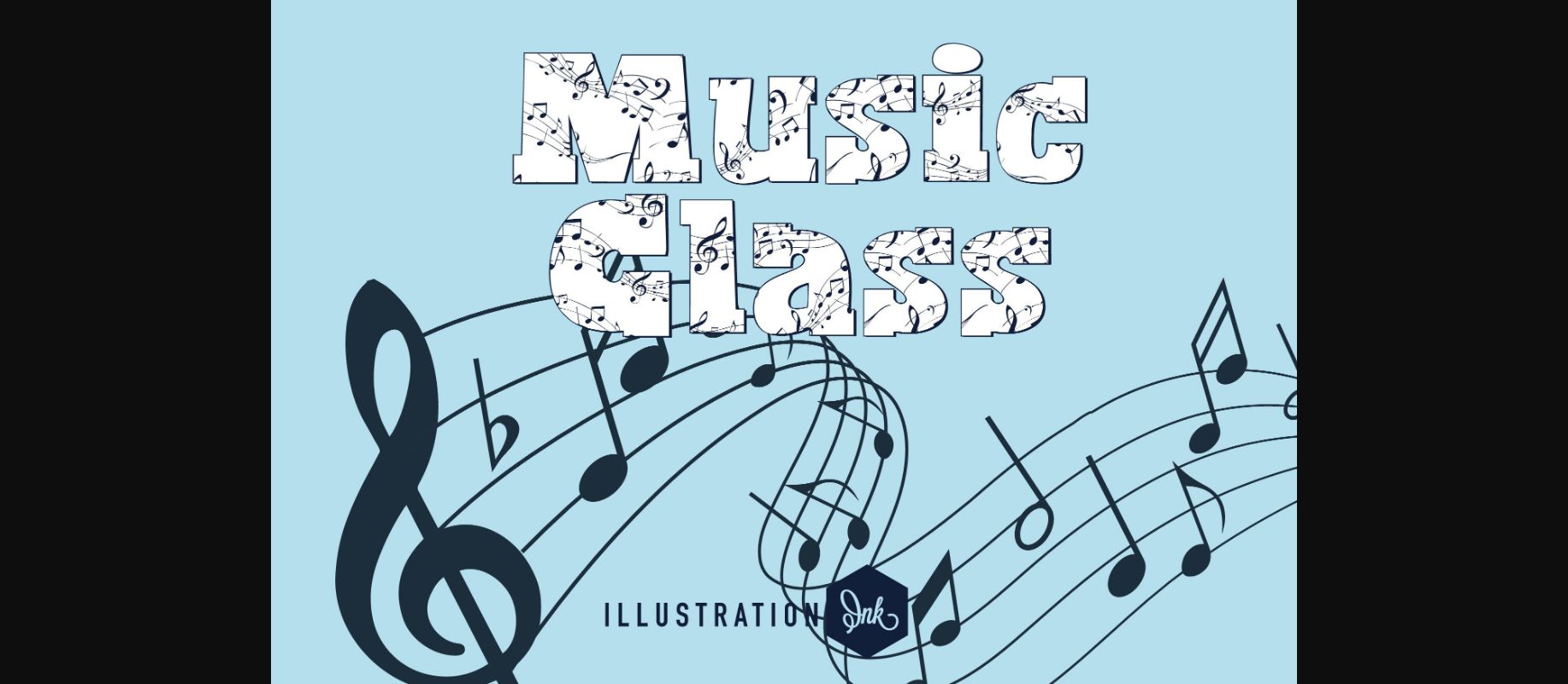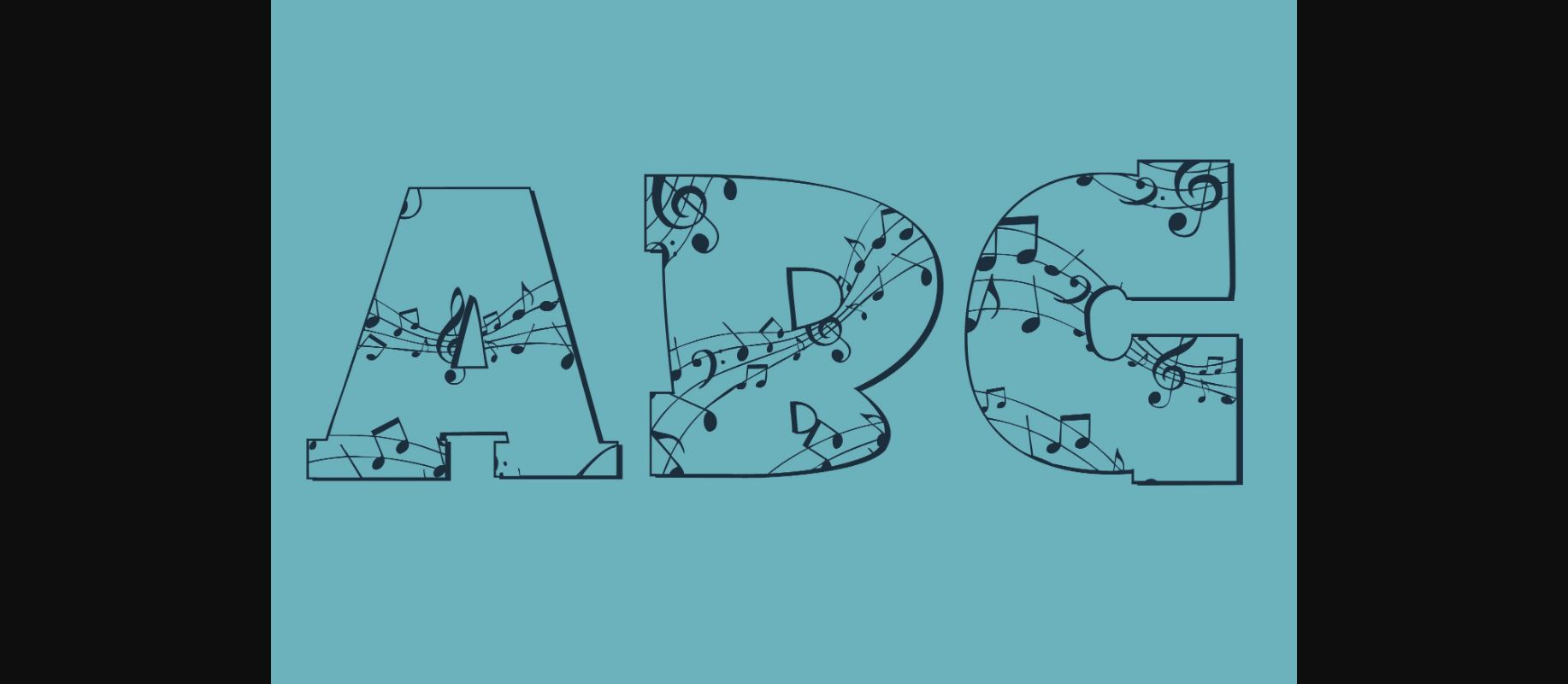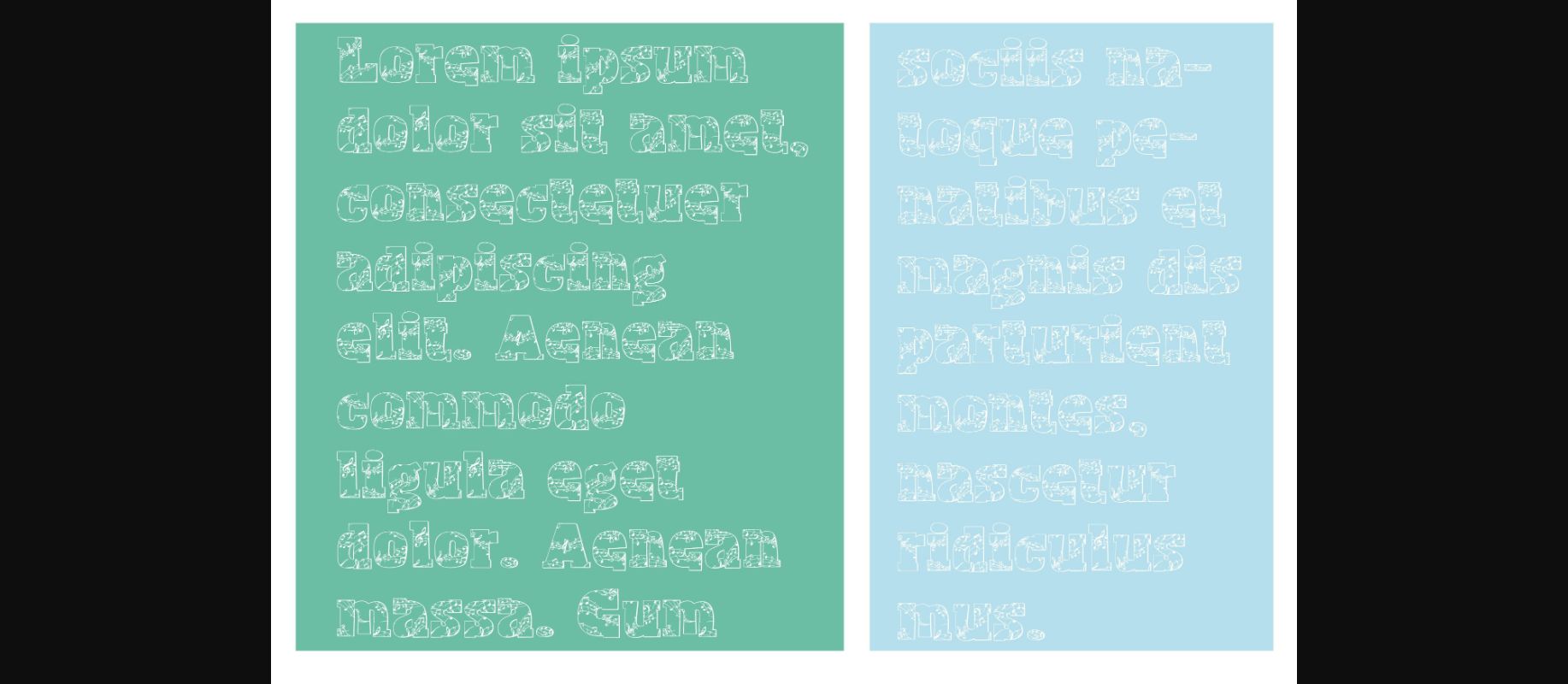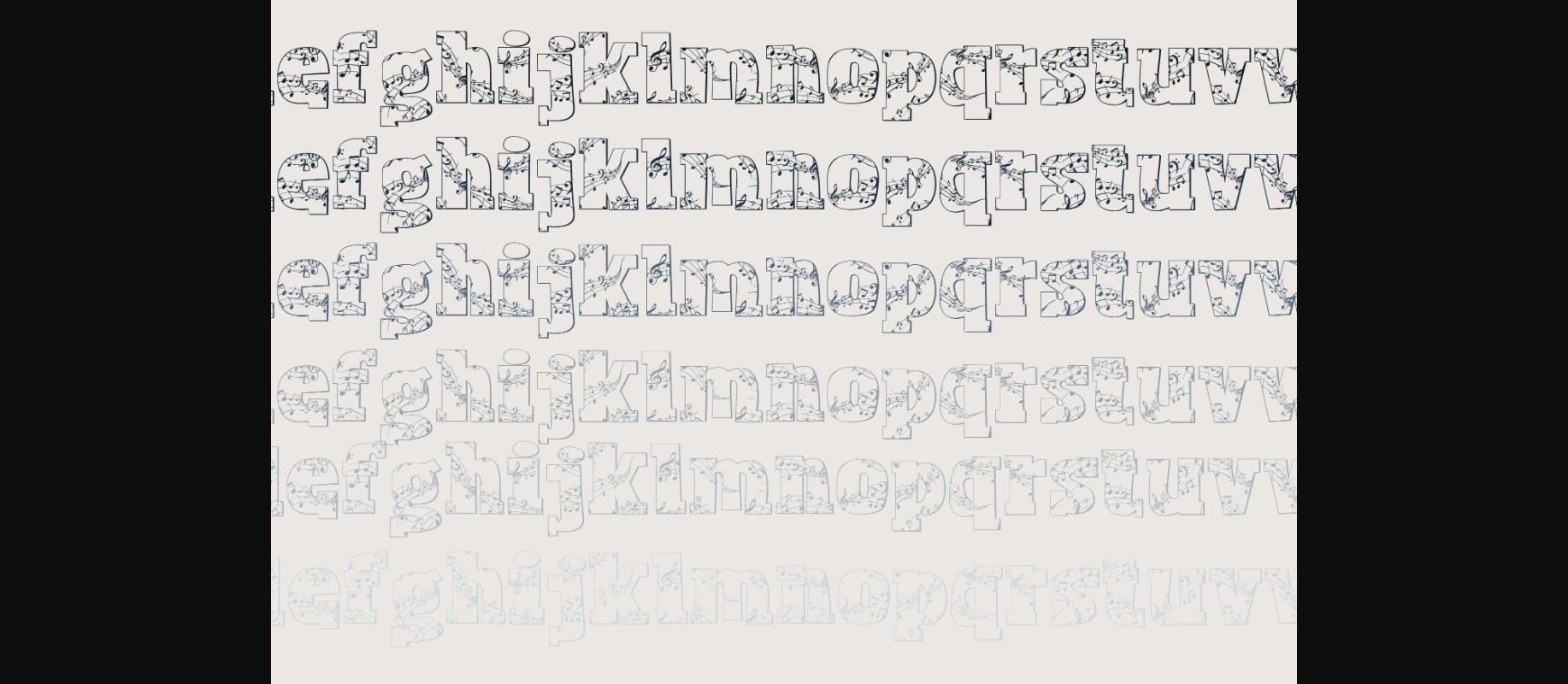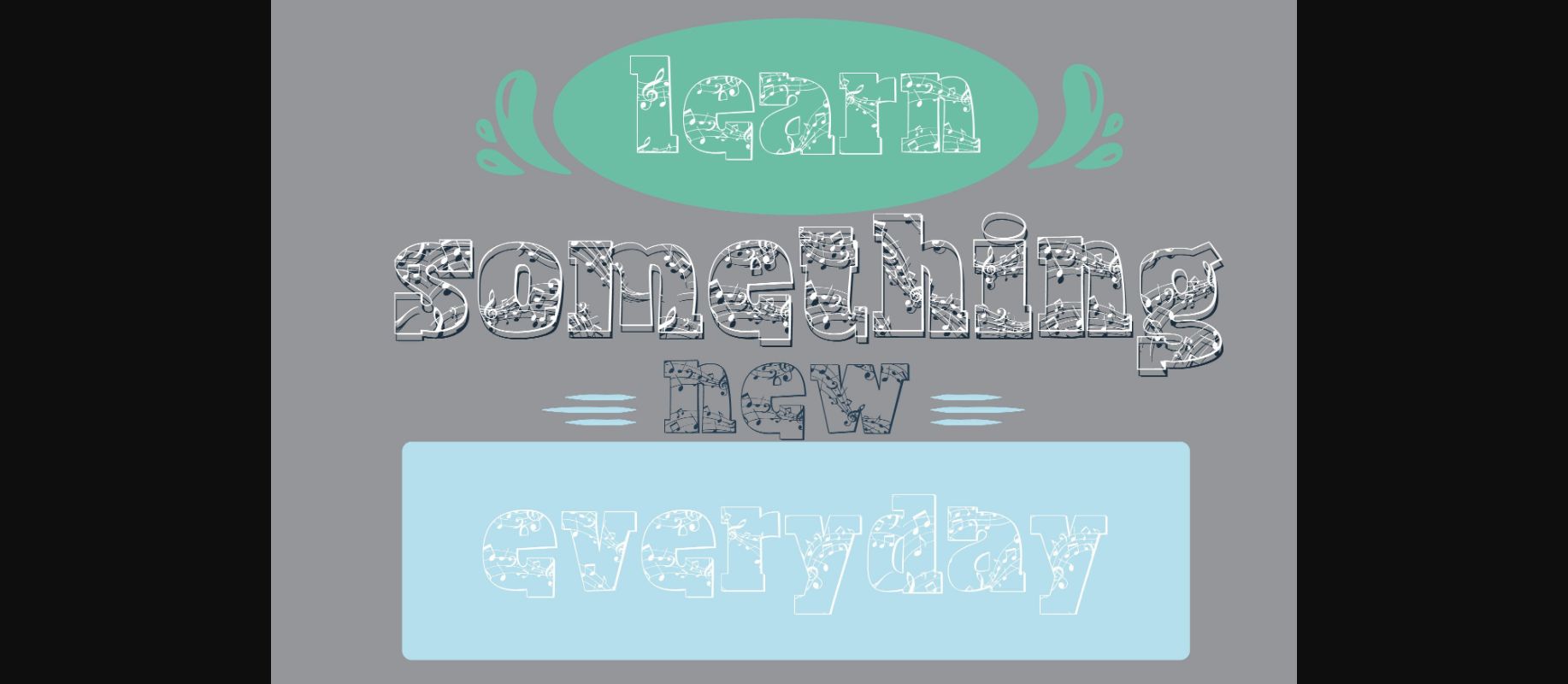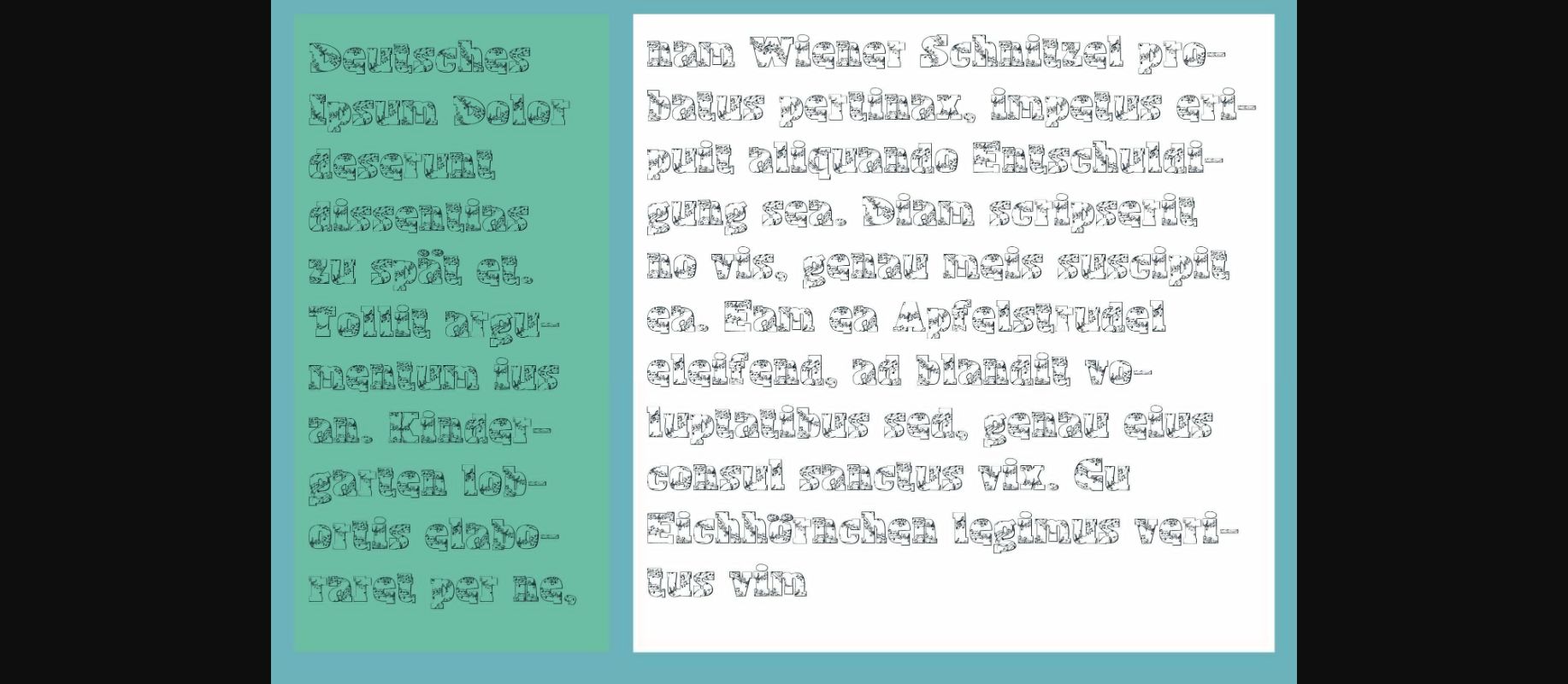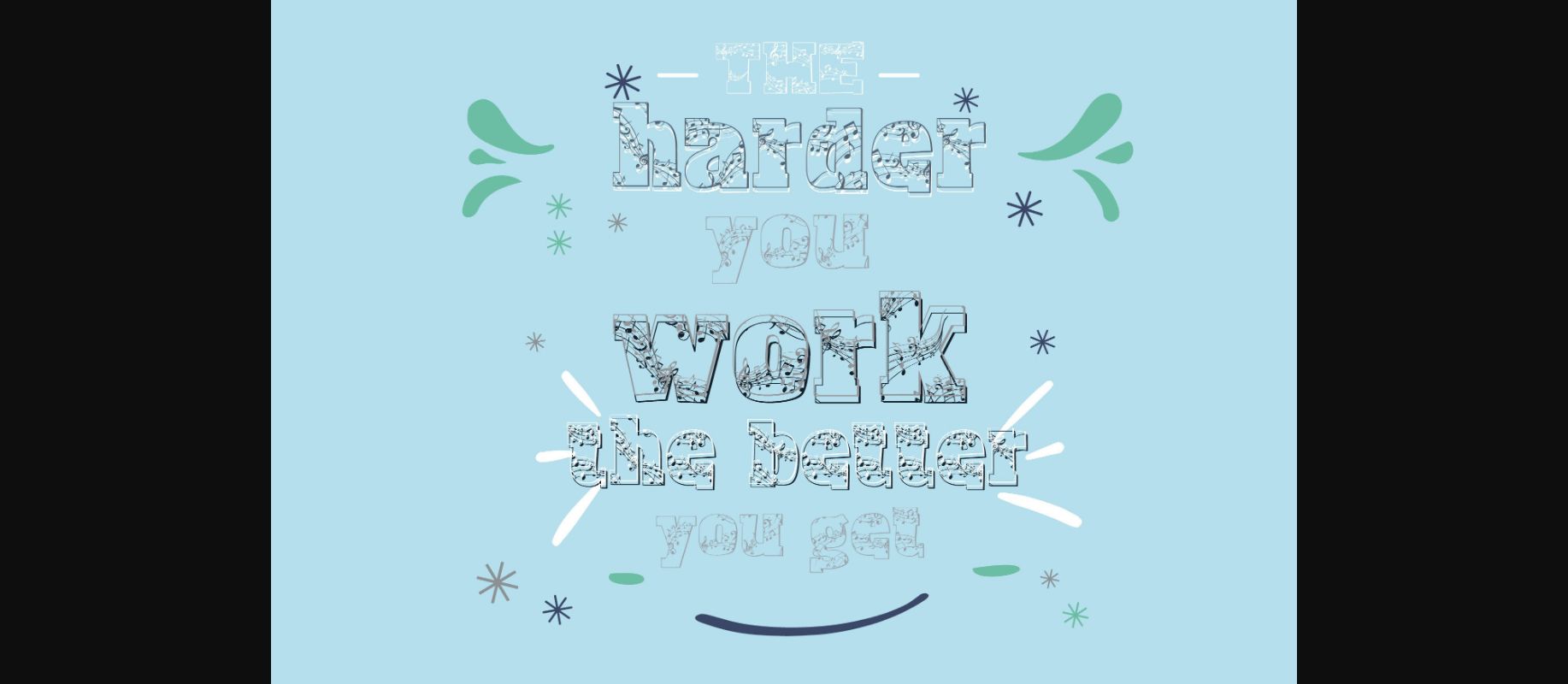
HomeDecorative FontsMusic Class Font Decorative Fonts Music Class Font FacebookXPinterestWhatsApp 1 of 9 ... Music Class Font Poster 2... Music Class Font Poster 3... Music Class Font Poster 4... Music Class Font Poster 5... Music Class Font Poster 6... Music Class Font Poster 7... Music Class Font Poster 8... Music Class Font Poster 9... About Music Class Font Music Class is a fun and cute decorative font that features musical notes throughout the letters. Add it to your creative ideas and you will love the results. DOWNLOAD NOW People also explored Beatrice Clorophil Font Sweet Dream Font Ethereal Sky Font Blending Attraction Font Freezer Font Ambergris Font YWFT Merriam Sinyor Yebri Font Christmas Font 279 0 TagsMusic Class Font Previous articleMusic Class FontNext articleMaze Font LEAVE A REPLY Cancel reply Comment: Please enter your comment! Name:* Please enter your name here Email:* You have entered an incorrect email address! Please enter your email address here Website: Save my name, email, and website in this browser for the next time I comment. Personal Use Free Clarisa Script Personal Use Free Read more about this font Homelands Personal Use Free Read more about this font Mixed Artistry Personal Use Free Read more about this font Choco Shake Font Personal Use Free Read more about this font BLOG Free Fonts Risk: Why Free Fonts Can Be Dangerous for Designers Free Fonts Risk: Why Free Fonts Can Be Dangerous for Designers Using free fonts is a common practice in web and graphic design. However, the... How to Install and Use Fonts on Windows, macOS, and Web Projects Modern Sans-Serif Fonts That Brands Love in 2025 Free vs Paid Fonts: Why Investing in Premium Fonts Is Worth It